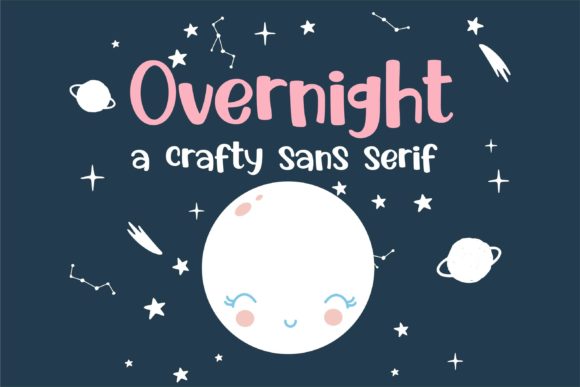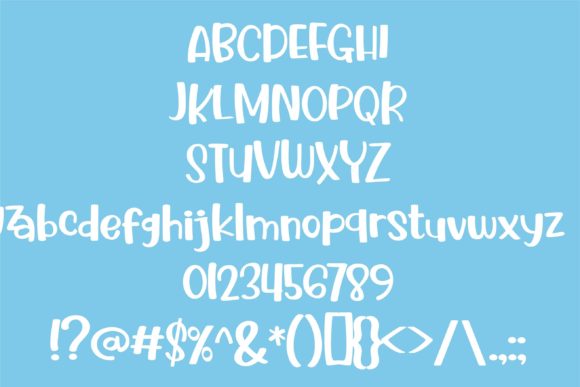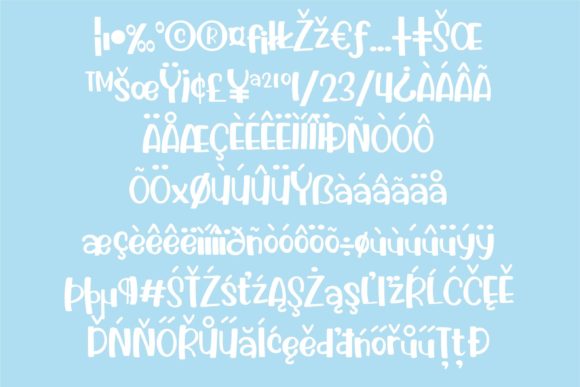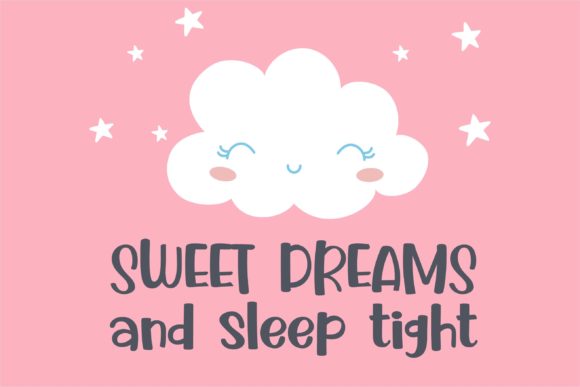
About Overnight Font
The handwritten font introduces a youthful and silly aesthetic characterized by a mix of thick and thin lines. With a quirky and fresh vibe, this typeface is designed to impress and bring a playful energy to your projects.
The combination of thick and thin lines in the handwritten font adds a dynamic and visually interesting quality to each character. This variation in line weight contributes to a lively and energetic appearance, making the font suitable for projects that aim to convey a sense of fun and creativity.
The youthfulness and silliness of the font are evident in its overall design. The characters exude a carefree and whimsical charm, creating a typeface that is both approachable and distinctive. This font becomes a standout choice for projects that require a touch of playfulness and a unique visual identity.
Quirky and fresh, the handwritten font stands out with its unconventional and creative styling. Whether used for headlines, titles, or body text, this typeface adds a sense of character and individuality to the overall design. Its freshness makes it adaptable to various design contexts, providing versatility in expressing your creative ideas.
The playful energy of the font makes it well-suited for a range of projects, from branding to marketing collateral. Whether applied to logos, posters, or social media graphics, the typeface brings a lighthearted and memorable quality to the visuals. Its quirky nature ensures that your designs stand out and leave a lasting impression.
In essence, the handwritten font goes beyond being just a font; it becomes a design element that injects youthful and silly vibes into your creative projects. Whether utilized for branding, marketing, or any context requiring a fresh and quirky typography, this font stands ready to impress with its dynamic mix of thick and thin lines. Embrace the playfulness and versatility of this typeface as it transforms your creative visions into visually engaging and memorable realities.